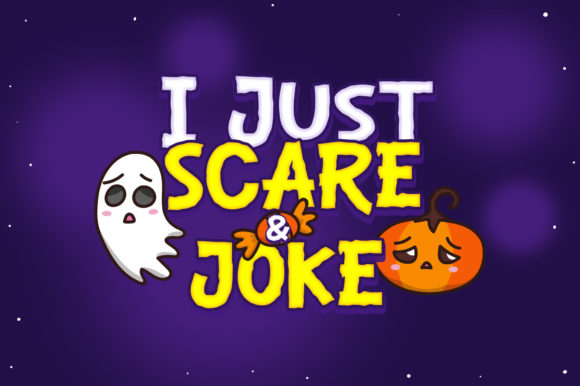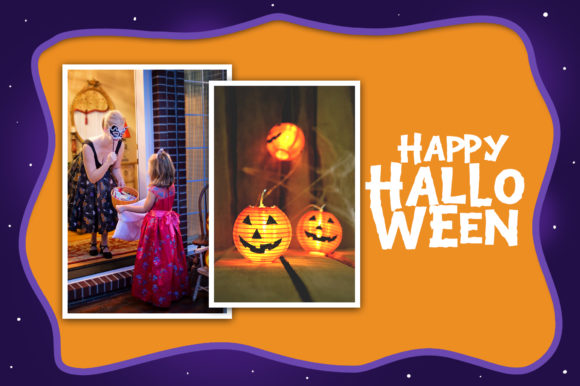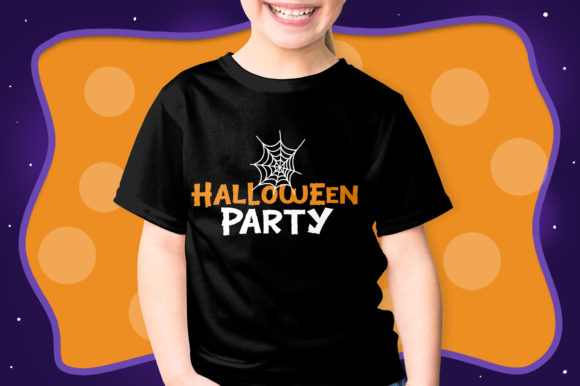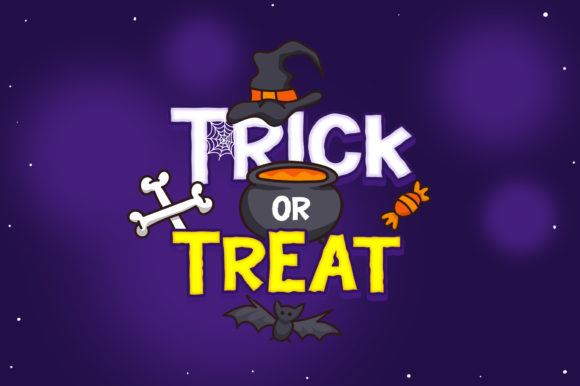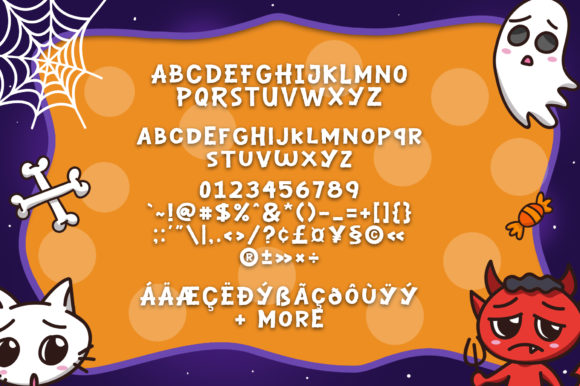
Gloomy Halloween Font: The Perfect Typeface for Spooky Creatives
As the spookiest time of the year approaches, designers and crafters are on the lookout for the perfect typography to bring their Halloween-themed projects to life. Look no further than the Gloomy Halloween Font, a display typeface specifically designed to celebrate all things scary and spooky. In this article, we’ll dive into the details of this eerie font and explore its uses in various creative projects.
What is Gloomy Halloween Font?
Gloomy Halloween Font is a unique and eye-catching display typeface that embodies the spirit of Halloween. With its creepy and eerie design, this font is perfect for creating spooky and attention-grabbing headlines, titles, and text elements for various Halloween-themed projects. The font features a range of characters, including letters, numbers, and punctuation marks, all designed to evoke a sense of eeriness and foreboding.
Key Features of Gloomy Halloween Font
- Creepy and Eerie Design: The Gloomy Halloween Font features a distinctive design that’s sure to send chills down the spine. Its creepy and eerie aesthetic makes it perfect for Halloween-themed projects.
- Wide Range of Characters: The font includes a comprehensive set of characters, including letters, numbers, and punctuation marks, making it suitable for a variety of creative projects.
- High-Quality Design: The font is designed with high-quality and precision, ensuring that it looks great in various sizes and resolutions.
- Easily Customizable: The Gloomy Halloween Font is easily customizable, allowing designers to adjust the font size, color, and style to suit their creative vision.
Uses of Gloomy Halloween Font
The Gloomy Halloween Font is an incredibly versatile typeface that can be used in a wide range of creative projects, including:
- Halloween-themed Posters and Flyers: Create eye-catching posters and flyers for Halloween parties, haunted houses, and other spooky events.
- Social Media Graphics: Use the Gloomy Halloween Font to create spooky social media graphics, including Facebook posts, Twitter headers, and Instagram stories.
- Halloween Crafts and DIY Projects: Add a touch of eeriness to your Halloween crafts and DIY projects, such as pumpkin carvings, ghostly decorations, and spooky centerpieces.
- Web Graphics and Banners: Use the font to create spooky web graphics and banners for Halloween-themed websites, blogs, and online stores.
Tips for Using Gloomy Halloween Font
To get the most out of the Gloomy Halloween Font, here are some tips to keep in mind:
- Use it Sparingly: Use the font sparingly to create a greater impact. Overusing the font can make your design look cluttered and overwhelming.
- Pair it with Other Fonts: Pair the Gloomy Halloween Font with other fonts to create a unique and interesting contrast. For example, you can pair it with a clean and simple font to create a striking contrast.
- Experiment with Colors: Experiment with different colors to create a unique and eye-catching design. You can use bright and bold colors to create a spooky and attention-grabbing effect.
In conclusion, the Gloomy Halloween Font is a unique and eye-catching display typeface that’s perfect for any spooky Halloween-themed creative project. With its creepy and eerie design, wide range of characters, and high-quality design, this font is sure to add a touch of eeriness to your designs. Whether you’re a designer, crafter, or simply someone who loves Halloween, the Gloomy Halloween Font is a must-have font for your creative toolkit.